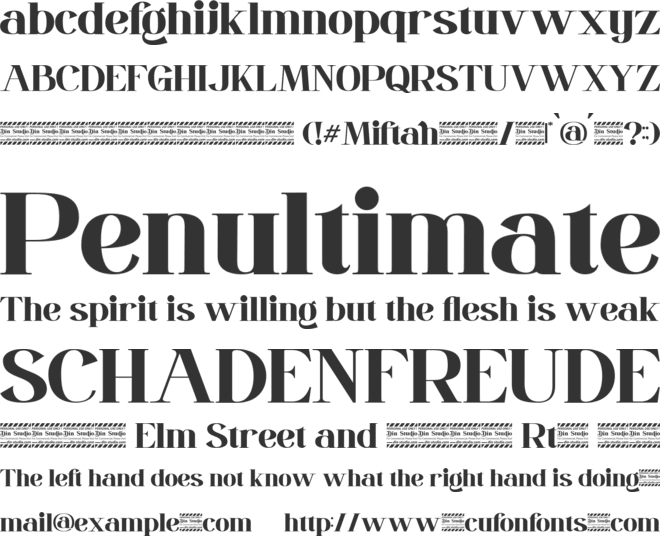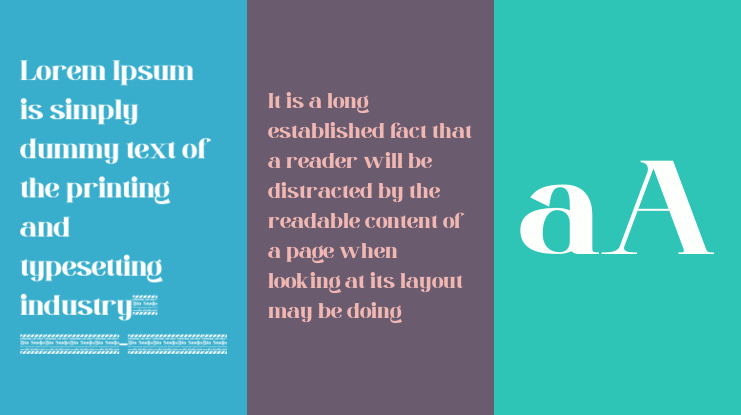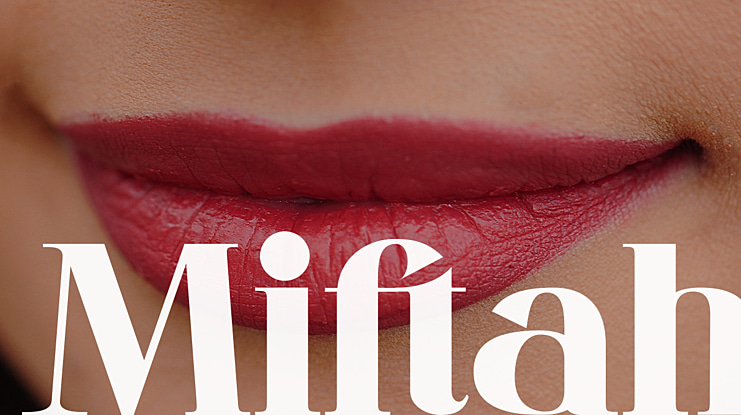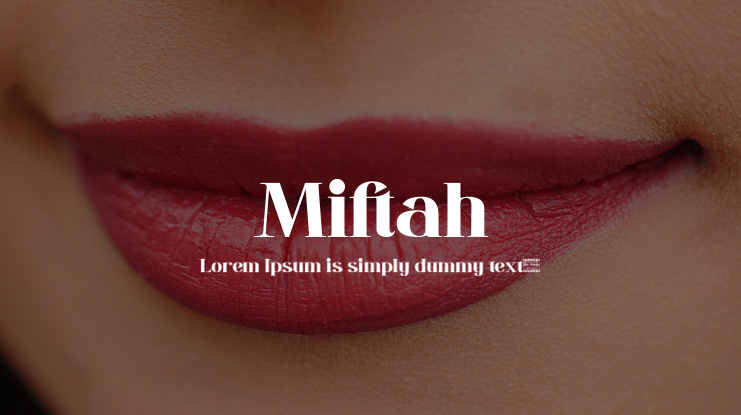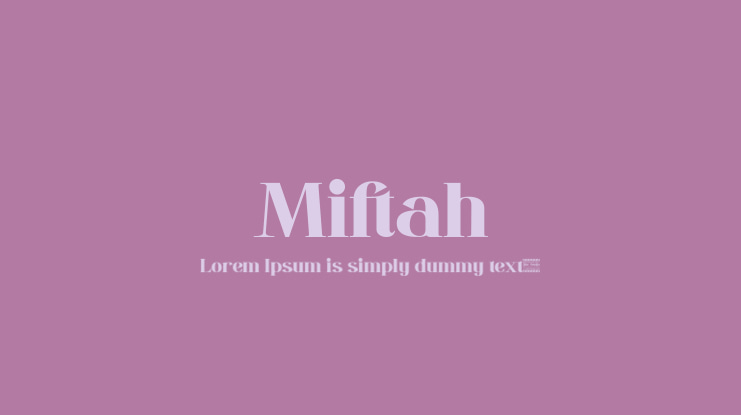
Miftah is a modern serif font. Made for any professional project branding. It is the best for logos, branding and quotes. Every letter has a unique and beautiful touch.